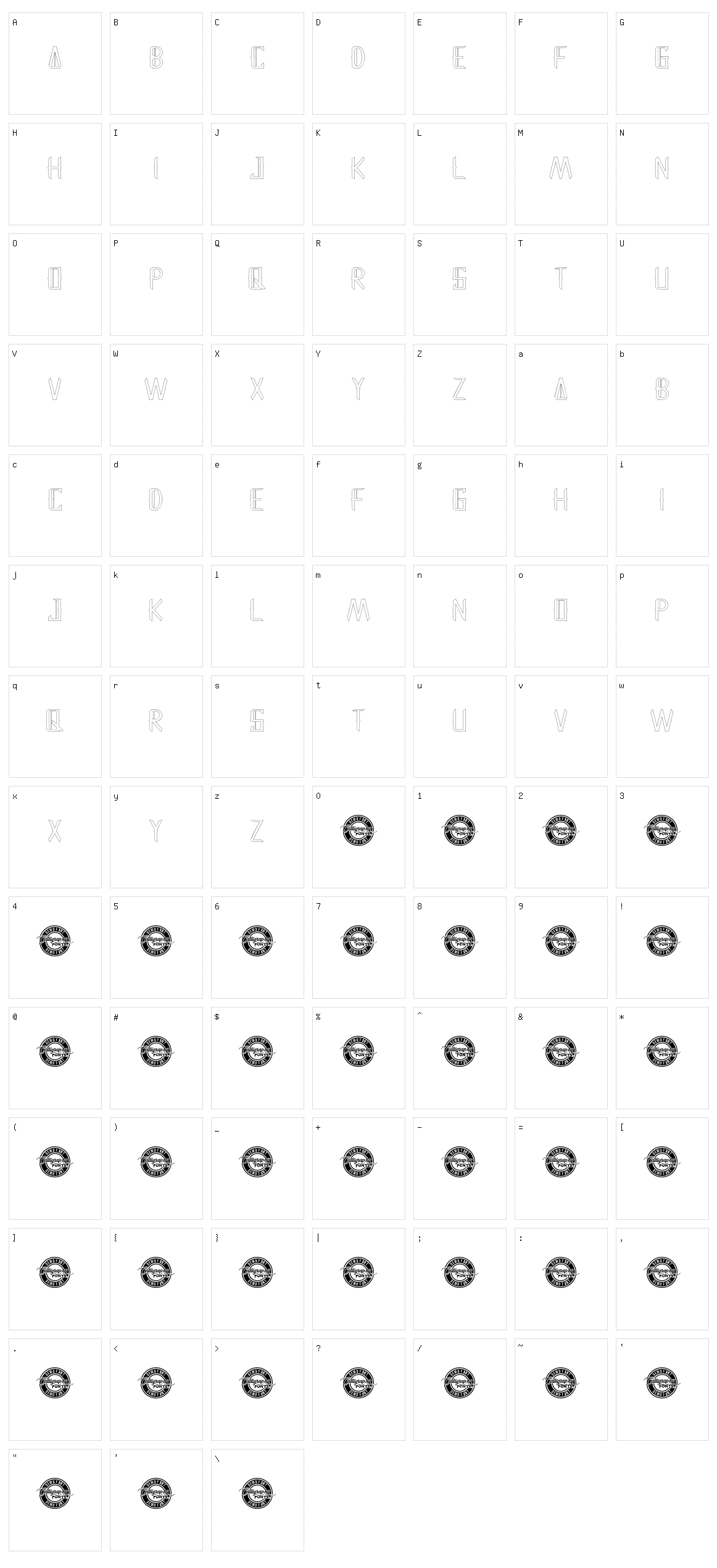
Dangerous
Designed by: Calligraphy Fonts
Description: The free font Dangerous is carefully designed by Calligraphy Fonts, showcasing a thoughtful balance of creativity and usability and belongs to the Gothic font family. When you download the ZIP file, it contains only 148.35 KB of font files, making it lightweight and quick to download. Please review the license details below to understand permitted usage and distribution rights. If license information is not available, we recommend using this font for personal projects only or contacting the author directly for commercial usage permissions.